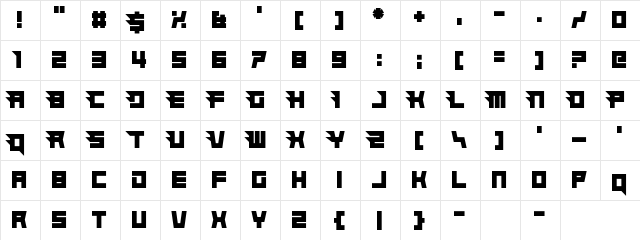
Hindsight 2020 Straight Regular
| Designer | Allison James |
Design Context for Hindsight 2020 Straight Typeface
Hindsight 2020 Straight is a composed and adaptable typeface that performs quietly and consistently across a wide range of design contexts.